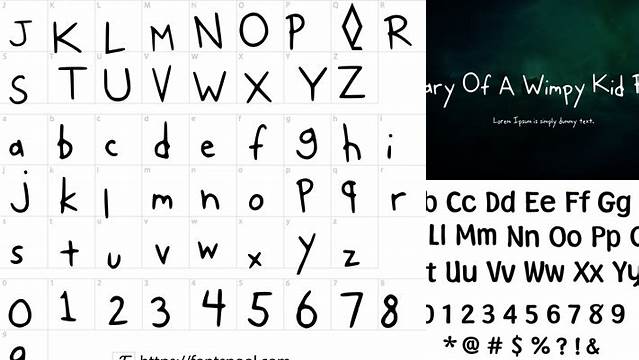
Free Fonts: Diary Of A Wimpy Kid - Get The Look!
Hey there, bookworms and design enthusiasts! Ever wondered how to get that super cool, hand-written look from the "Diary of a Wimpy Kid" books? Well, you're in the right place! We're diving deep into the world of free fonts that capture the essence of Greg Heffley's diary. Whether you're crafting fan art, making a school project, or just love the unique style, we've got you covered. Let's explore how you can snag those Diary of a Wimpy Kid vibes without spending a dime!
What is the Diary of a Wimpy Kid Font?
Okay, so the actual font used in the Diary of a Wimpy Kid books isn't officially released as a downloadable font. It's custom-made to give the books that authentic, handwritten feel. But don't worry, guys! There are tons of free fonts out there that come super close. Think messy, quirky, and a little bit uneven – that's the sweet spot. We're talking about fonts that look like someone scribbled them in a notebook, complete with little imperfections that make them charming. In the following sections, we'll introduce you to some fantastic free font alternatives that will get you pretty darn close to the real deal. So, keep reading, and let's get those creative juices flowing!
Best Free Fonts Similar to Diary of a Wimpy Kid
Finding the perfect free font can feel like searching for a needle in a haystack, but trust me, there are some gems out there! When you are looking for a free font to match the Diary of a Wimpy Kid style, keep an eye out for fonts with irregular baselines and thick strokes. Fonts that look like they were drawn with a marker or pen are ideal. Fonts such as Permanent Marker, covered later, are perfect examples. Let's explore some of the best free fonts that echo the iconic look, and how you can use them in your projects.
Diary of a Wimpy Kid Font Alternatives
Alright, so you're on the hunt for free fonts that scream "Diary of a Wimpy Kid," but you don't know where to start? No sweat! Think about what makes the original font so unique. It's all about that casual, hand-written vibe. So, when you're browsing through free font libraries, look for fonts that have a similar feel. Scanned handwriting fonts, fonts with varying character heights, and those with a slightly rough or textured appearance will get you closer to that Greg Heffley look you're going for. Remember that the perfect free font doesn't have to be an exact match; it just needs to capture the overall spirit!
Using Free Fonts in Your Projects
So, you've got your hands on some awesome free fonts that channel the "Diary of a Wimpy Kid" vibe – now what? Time to get creative! These free fonts are perfect for all sorts of projects, from fan art and posters to school assignments and even your own personal diary. Imagine creating a birthday card with a free font that looks just like Greg's handwriting, or designing a cool t-shirt with a catchy slogan. The possibilities are endless! Just remember to have fun and experiment with different sizes, colors, and layouts to get the look just right.
Combining Fonts for a Unique Look
Want to take your design skills to the next level? Try combining different free fonts to create a unique and eye-catching look. Pair your "Diary of a Wimpy Kid"-inspired free font with a simple, clean font for headings or body text. This can add contrast and make your design more visually appealing. For example, you could use a handwritten-style free font for the title and a sans-serif font for the main content. Experiment with different combinations until you find something that really pops!
Font Pairing Tips
Font pairing can be tricky, but here are a few tips to help you out. First, consider the mood you're trying to create. If you're going for a playful and informal look, you can pair two handwritten free fonts together. If you want something more professional, combine a handwritten free font with a clean and modern sans-serif. Also, pay attention to the contrast between the free fonts. You want them to complement each other, not clash. A good rule of thumb is to choose one free font for headings and another for body text. Keep experimenting until you find a combination that works!
Reenie Beanie Font
Reenie Beanie provides a quirky, informal touch with its uniquely shaped characters and playful baseline, making it an interesting free font alternative for capturing the spirit of Diary of a Wimpy Kid. Its irregular appearance adds a handmade feel to designs, perfect for projects aiming to convey personality and a sense of fun, informal creativity.